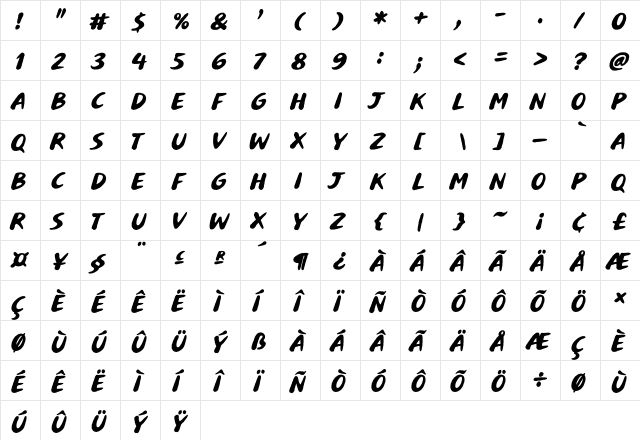
Buvard Regular
| Foundry | Youssef Habchi |
| Designer | Youssef Habchi |
Design Context for Buvard Typeface
Buvard is a composed and adaptable typeface that performs quietly and consistently across a wide range of design contexts.